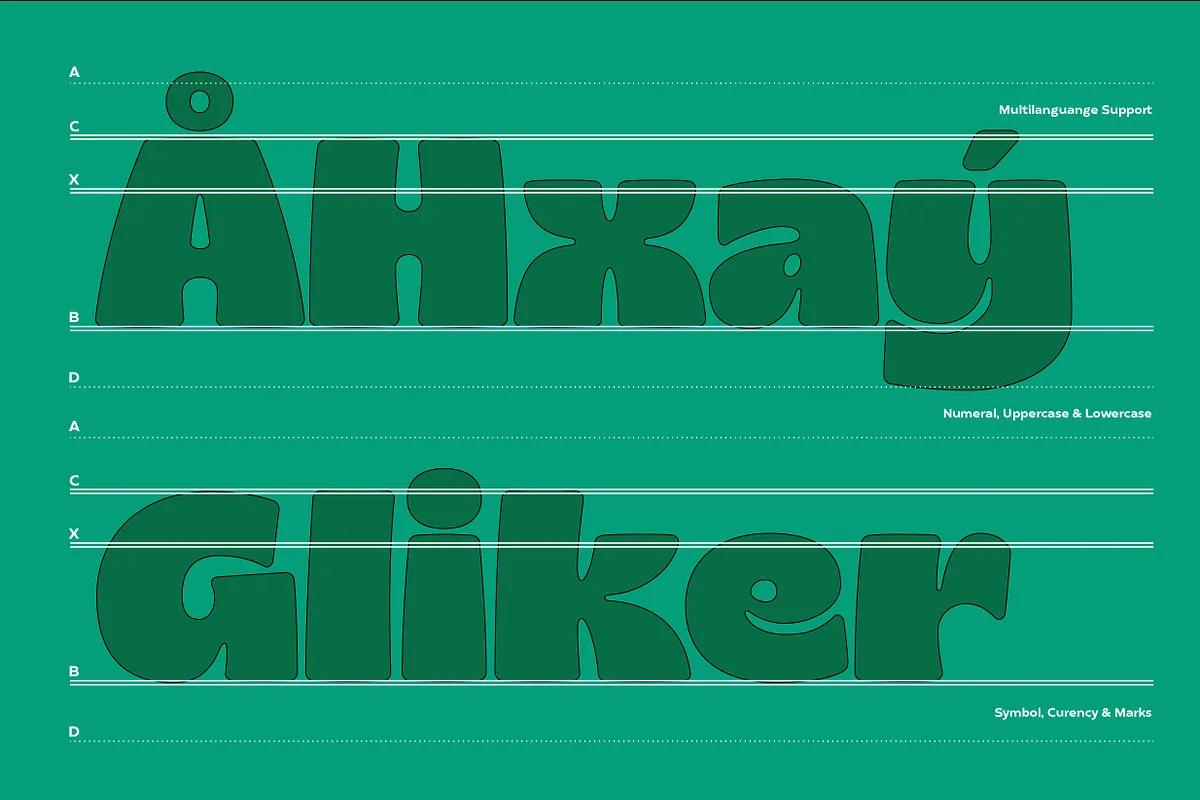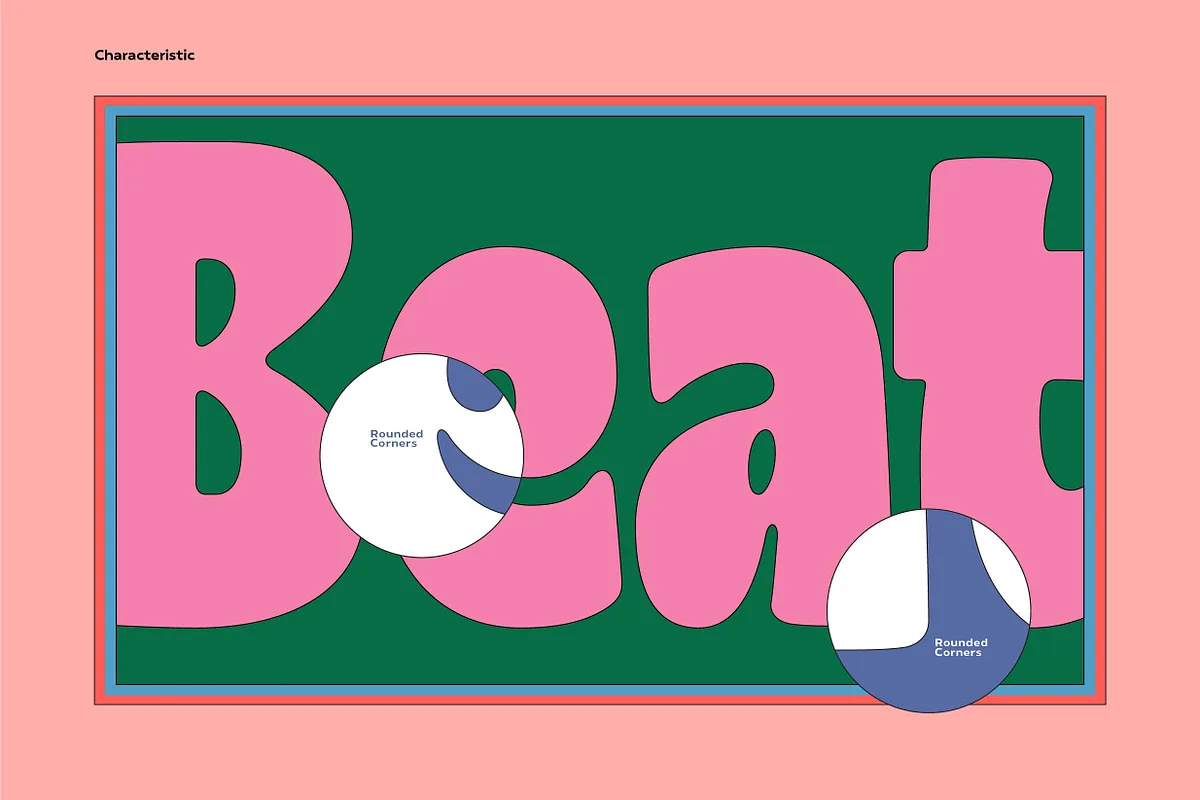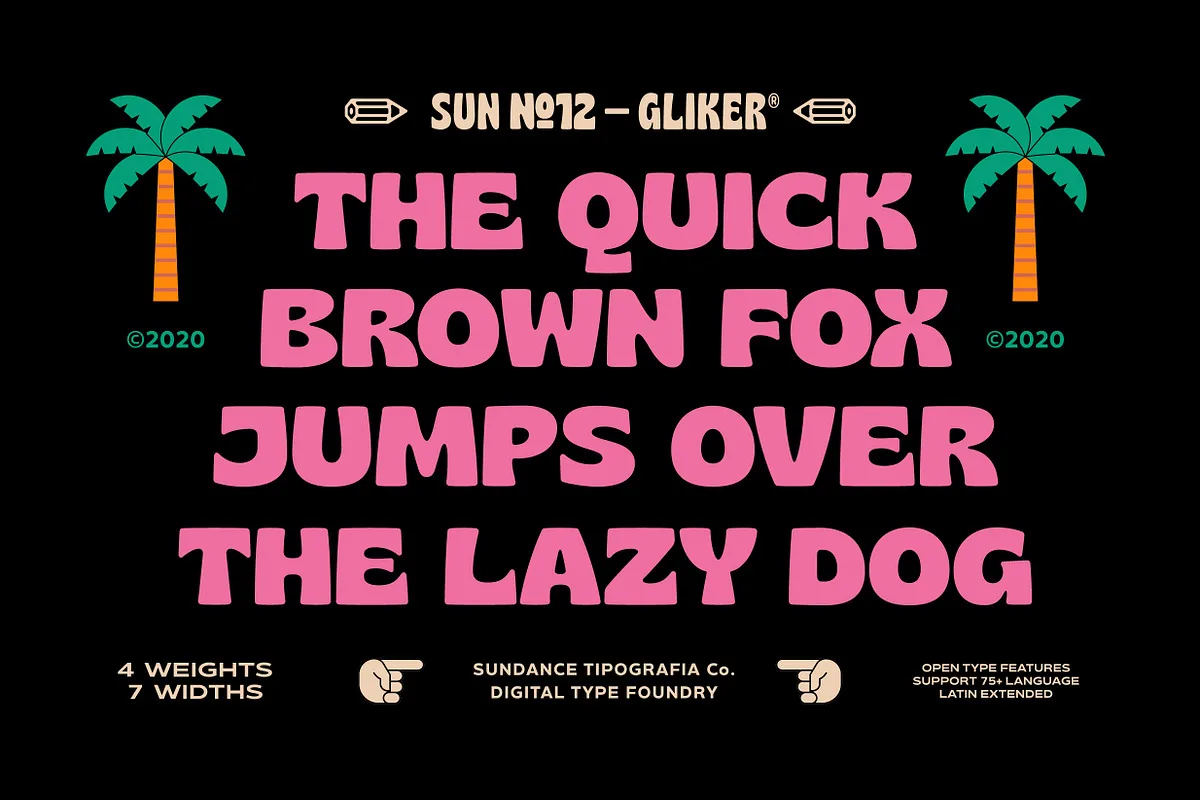
Gliker is a rounded display family by Sundance Tipografia, drawn in 2019 and released in June 2020. It takes its cue from the Hobo typefaces of the early twentieth century — every corner is rounded off, which is what gives Gliker its bouncy, slightly retro feel without tipping into pastiche. What makes it unusual for a display face is the range: it ships as a full 28-style system, so you can set a poster headline and a tight vertical label in the same voice.
All 28 Gliker styles: 4 weights × 7 widths
Most people arriving here are looking for one specific cut — Gliker Regular, Gliker Black or one of the condensed widths. Every weight is available in every width, so the full grid looks like this:
| Width | Regular | Semi Bold | Bold | Black |
|---|---|---|---|---|
| Extra Condensed | ✓ | ✓ | ✓ | ✓ |
| Condensed | ✓ | ✓ | ✓ | ✓ |
| Semi Condensed | ✓ | ✓ | ✓ | ✓ |
| Normal | ✓ | ✓ | ✓ | ✓ |
| Semi Expanded | ✓ | ✓ | ✓ | ✓ |
| Expanded | ✓ | ✓ | ✓ | ✓ |
| Extra Expanded | ✓ | ✓ | ✓ | ✓ |
The practical consequence is that Gliker Black Extra Condensed and Gliker Regular Expanded are separate files in the same download, not something you fake with software stretching. If you have seen a Gliker headline that looked impossibly tall and narrow, it was Extra Condensed doing the work.
Language coverage is wide for a display face: the family supports 75+ Latin (Extended) languages, which covers Western and Central European sets rather than just basic English. If you need Cyrillic or Greek, this is not the family for you.
Where Gliker works
Rounded, high-contrast-in-width families like this earn their keep on packaging, event posters, streetwear graphics and any brand that wants to read as friendly rather than corporate. The condensed cuts stack well in narrow columns — think drink cans and book spines — while the expanded cuts fill a wide banner without needing to be set enormous. It is a poor choice for body text at small sizes; the rounded corners blur together below roughly 14px.
What weights and widths does Gliker come in?
Four weights — Regular, Semi Bold, Bold and Black — each drawn across seven widths: Extra Condensed, Semi Condensed, Normal, Semi Expanded, Expanded and Extra Expanded. That is 28 separate style files, all included in the one purchase.